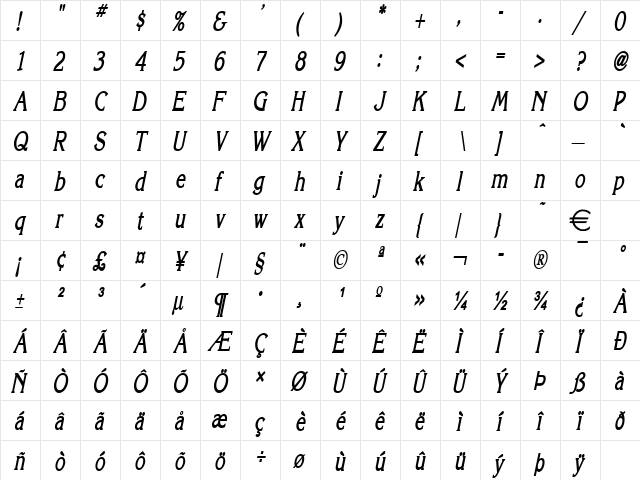
KeiraThin BoldItalic Font Preview
Design Context for KeiraThin Typeface
KeiraThin offers clean, dependable letterforms without strong stylistic allegiance, making it a practical choice for designers who need flexibility. Its italic angle brings a sense of urgency and motion to the letterforms. The heavy weight commands attention and anchors typographic hierarchies.
Pro Tip: Try KeiraThin for annotation and caption copy alongside an upright companion — the contrast in angle creates a dynamic but ordered typographic system.